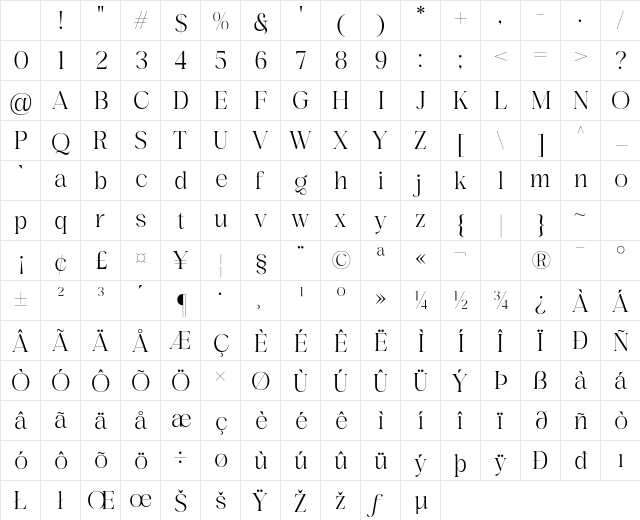
Dream Cottage is a composed and adaptable typeface that performs quietly and consistently across a wide range of design contexts.
Pro Tip: Use Dream Cottage in both headline and body roles to test its range before committing to a single application.